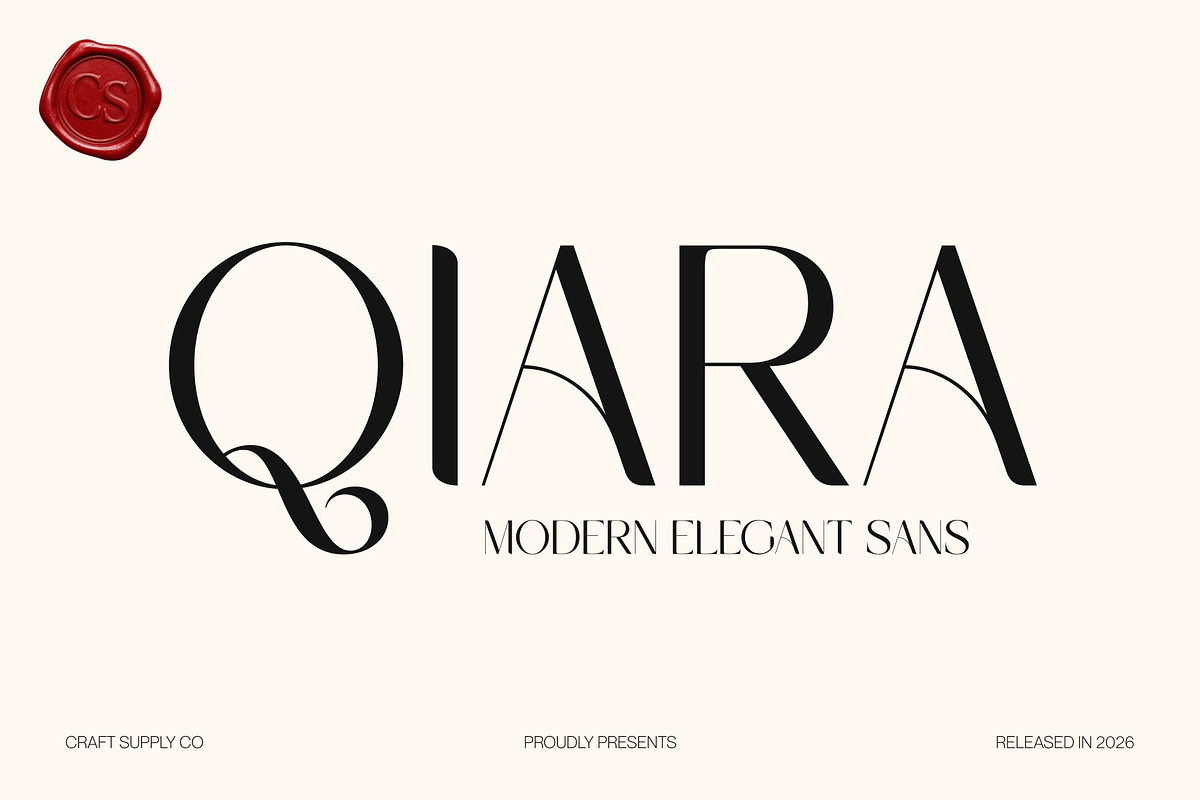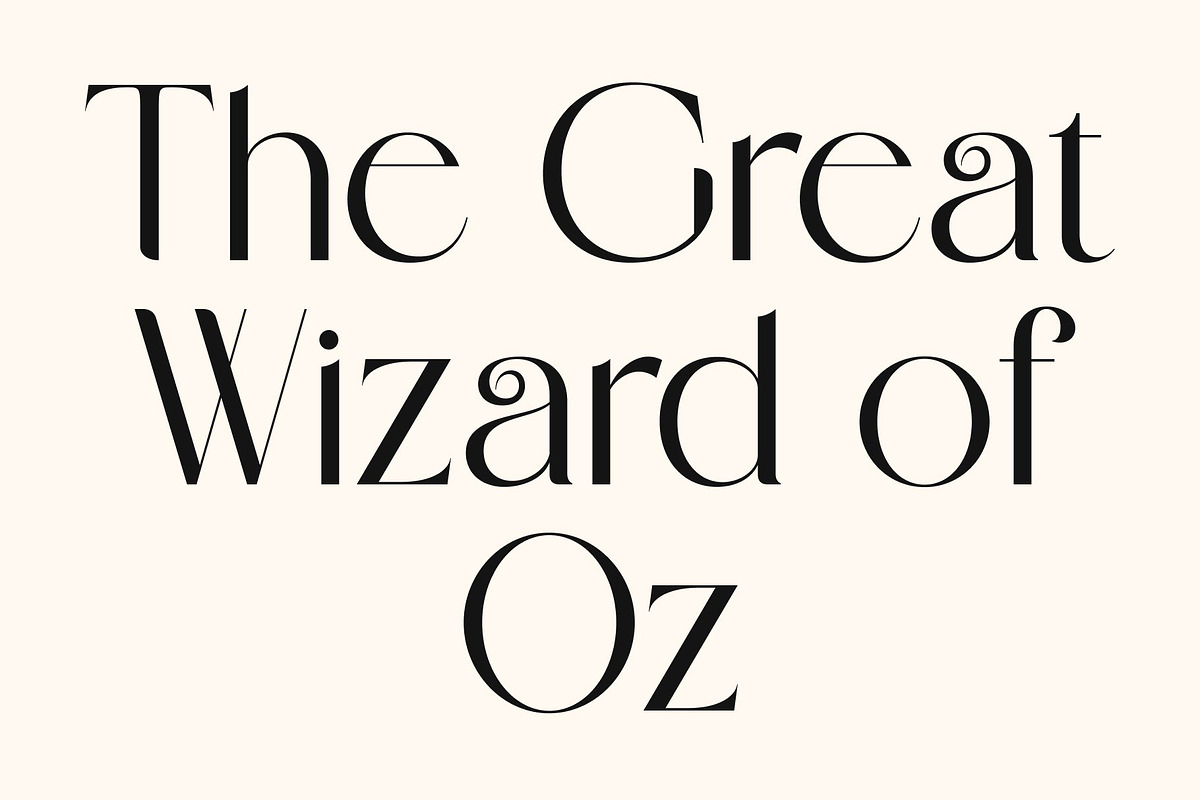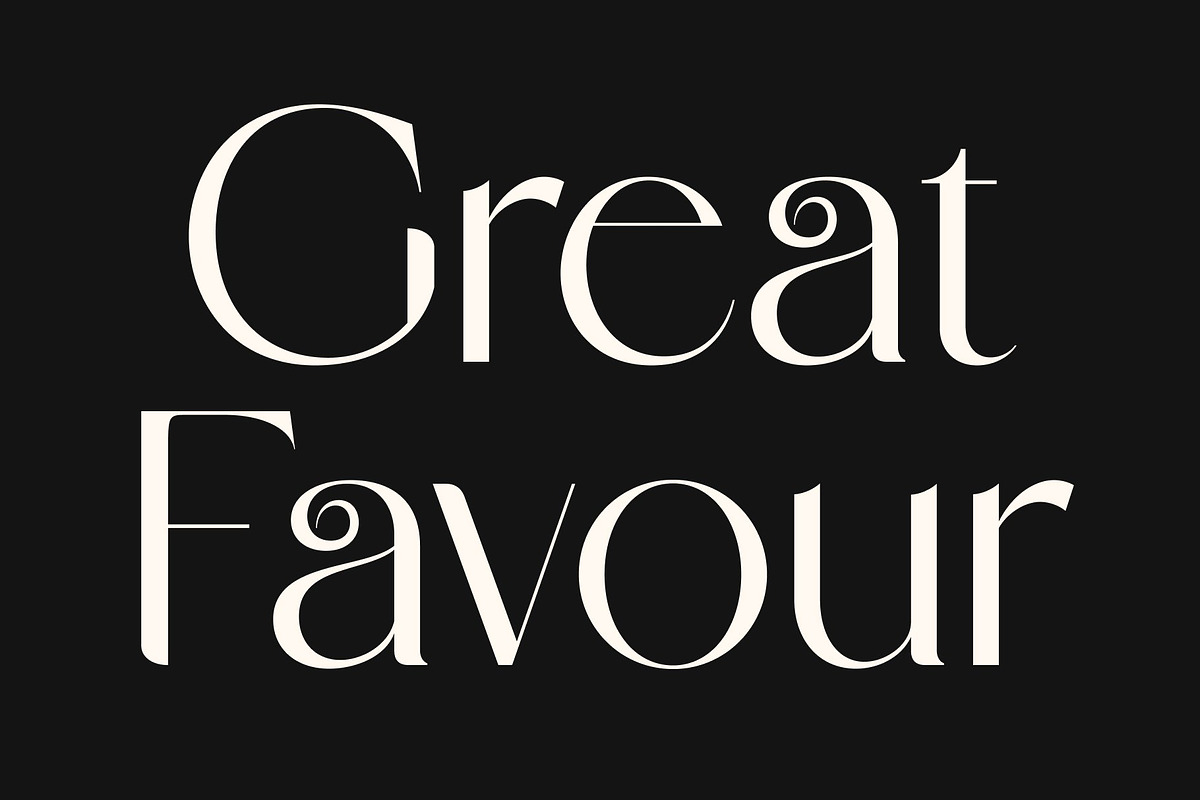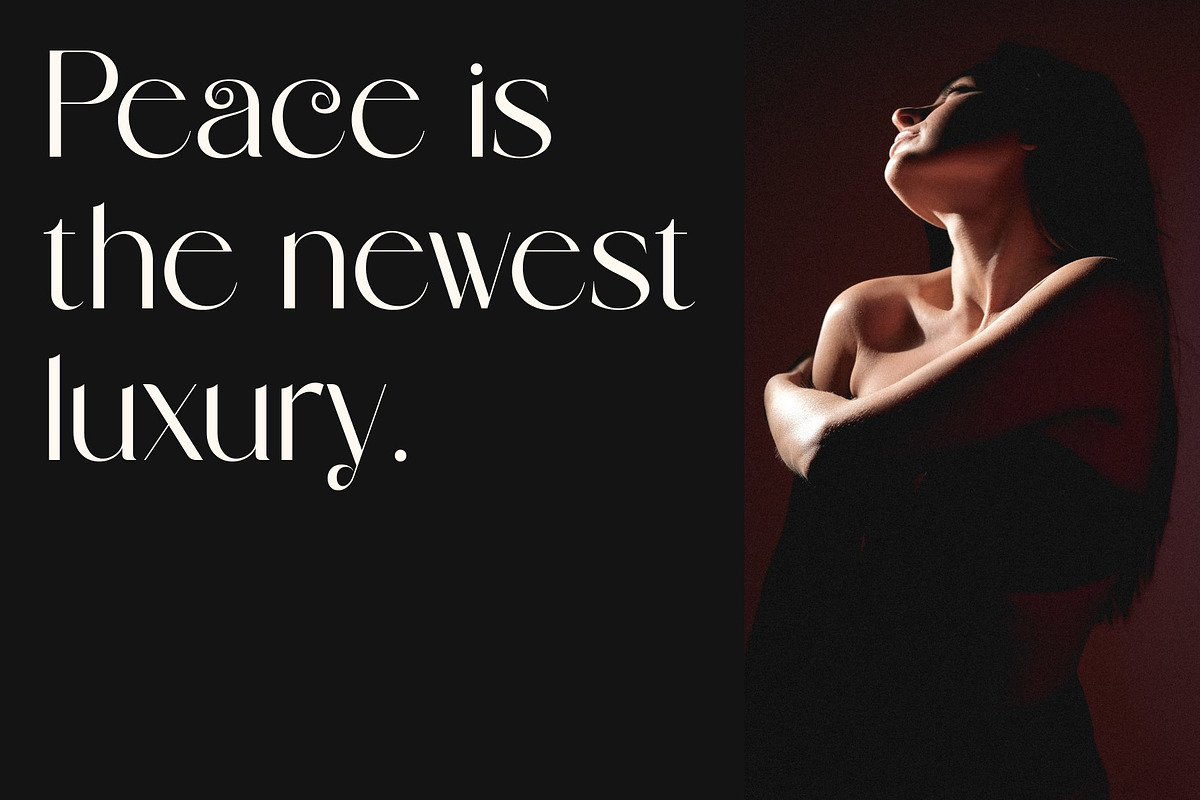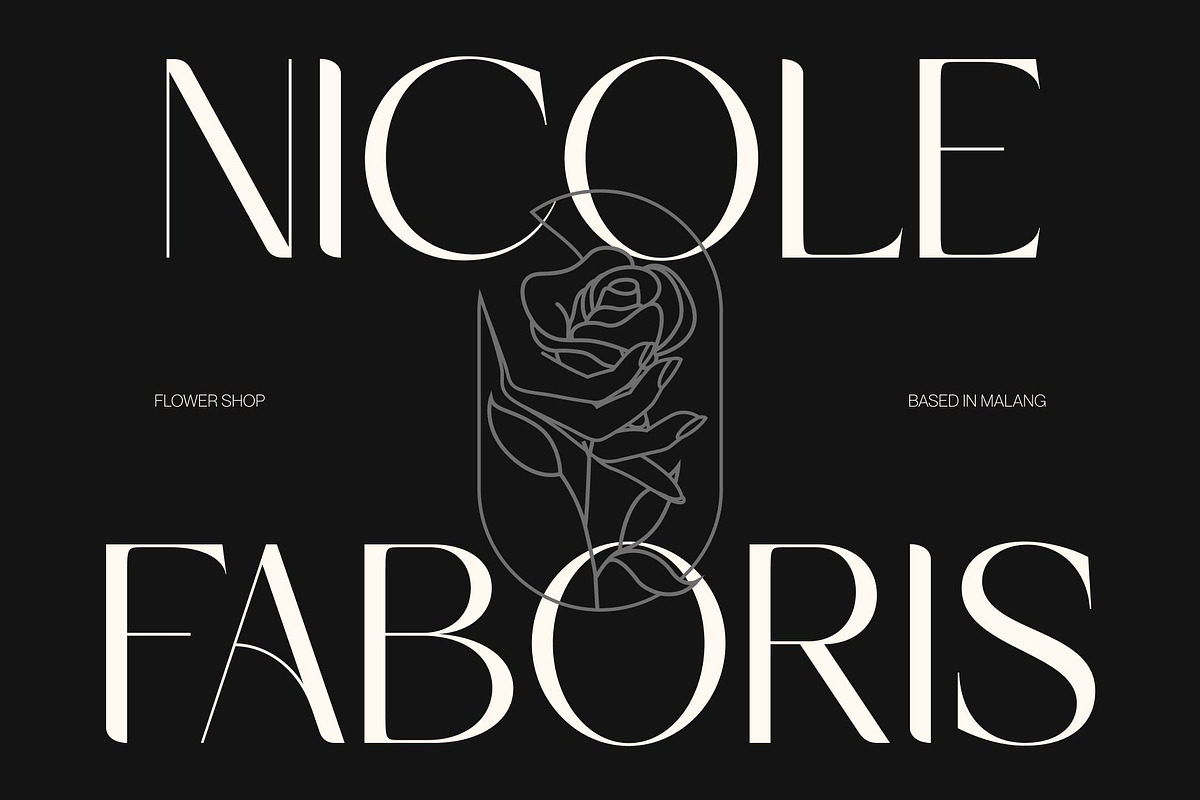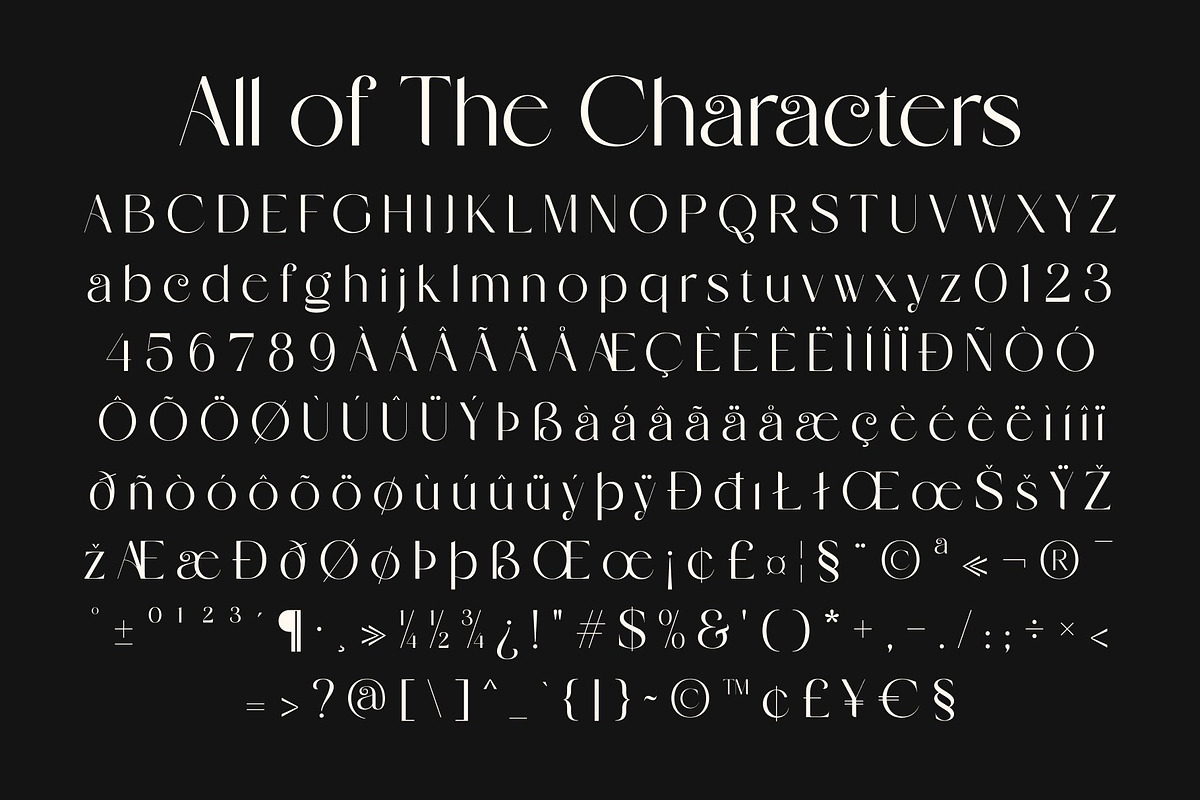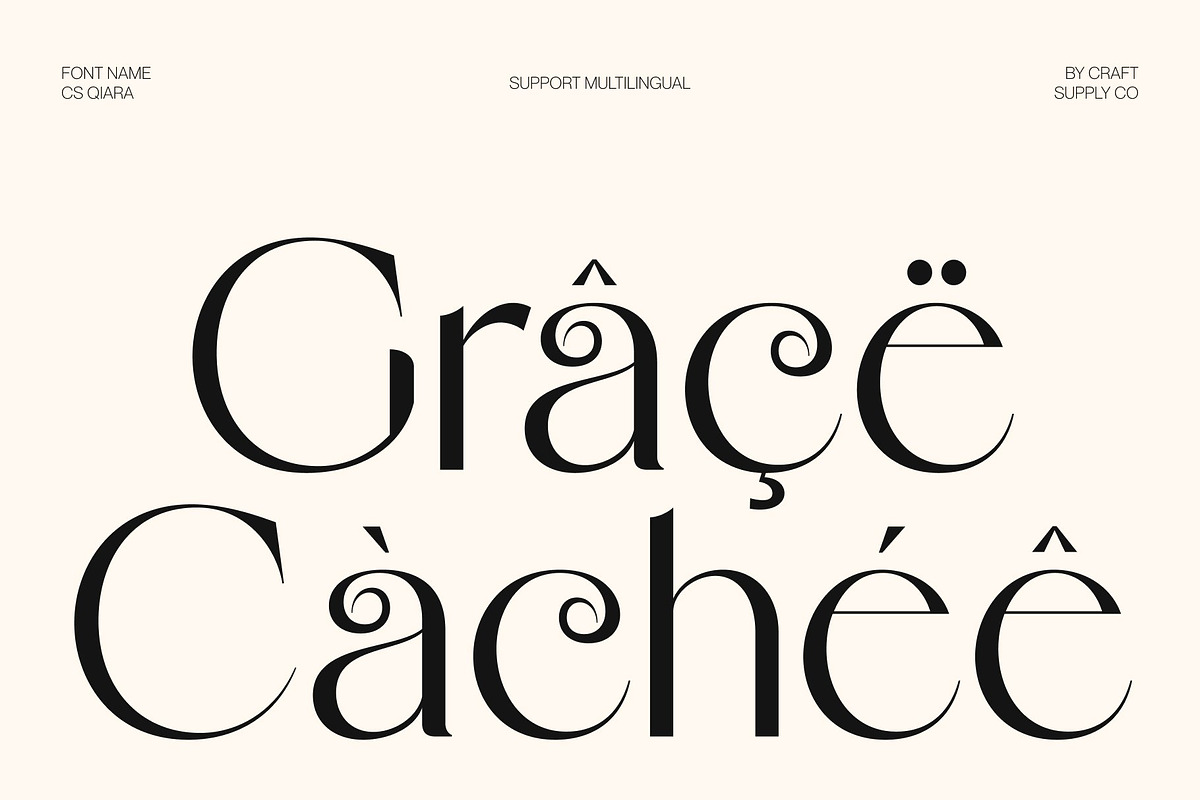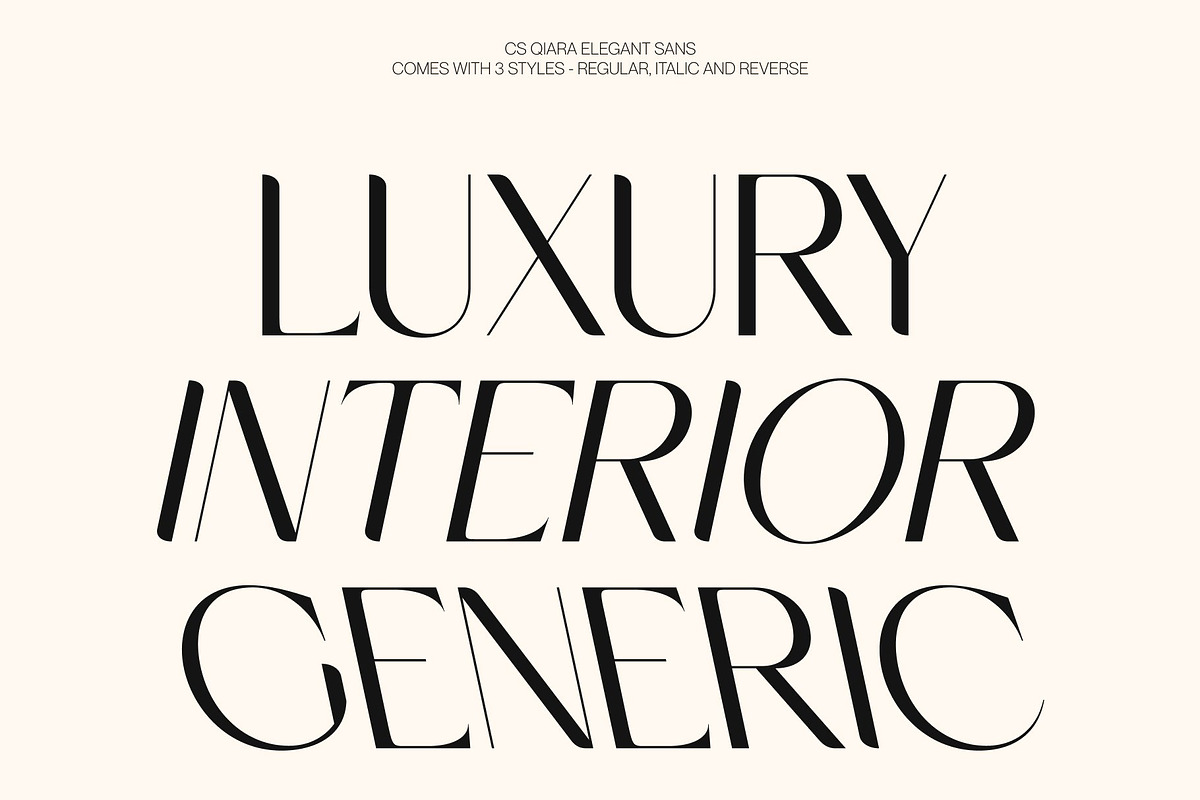
CS Qiara – Modern Sans Serif
CS Qiara – Modern Sans Serif with High-Contrast Elegance
Modern Sans Serif with Stylish Contemporary Appeal This is a modern and stylish sans serif font designed to radiate elegance through refined structure and striking contrast. With its clean lines and sophisticated proportions, this typeface delivers a polished and fashion-forward aesthetic that feels both modern and luxurious. It is crafted for designers who want typography that communicates beauty, confidence, and clarity.
High Contrast with Refined Character The defining feature of this font lies in its elegant high-contrast design, where subtle variations in stroke weight create depth and visual rhythm. This contrast enhances the font’s sophistication, giving each letterform a graceful and expressive personality while maintaining excellent readability across different sizes.
Clean Structure with Elegant Flow This font balances minimal sans serif simplicity with refined elegance, resulting in a typeface that feels both contemporary and timeless. Its smooth curves and balanced geometry create a harmonious flow, making it suitable for both bold display use and refined editorial compositions.
Perfect for Editorials, Branding, and Lifestyle Products From editorial layouts and branding systems to lifestyle products and fashion campaigns, this font offers a versatile typographic solution. Its combination of high-contrast elegance, modern simplicity, and stylish refinement ensures your designs feel premium, sophisticated, and visually compelling.
CS Qiara Regular
CS Qiara Italic
CS Qiara Reverse Italic